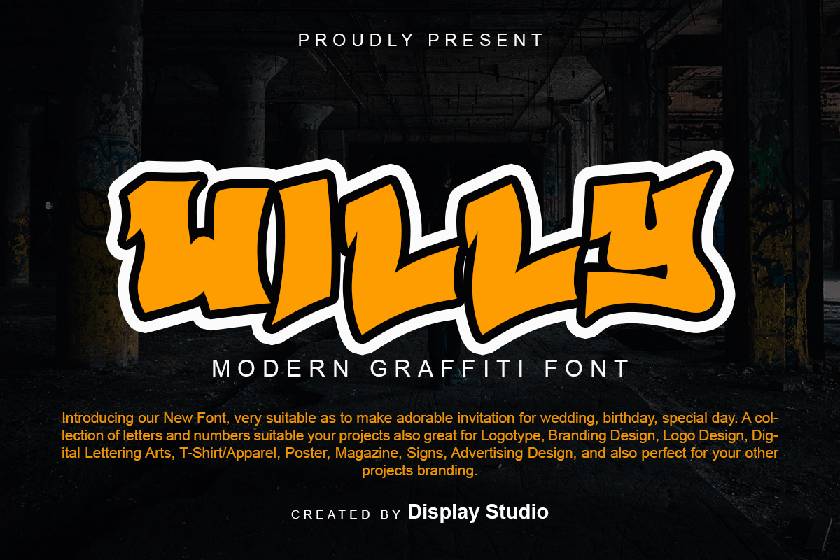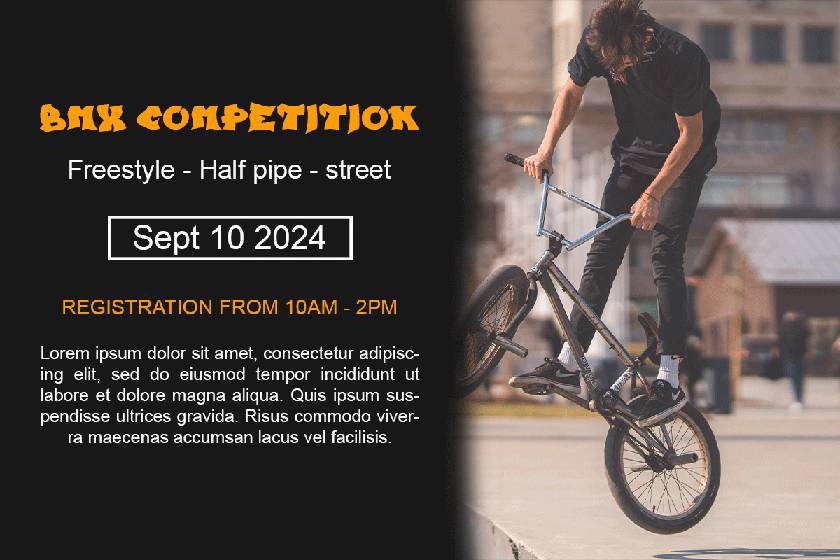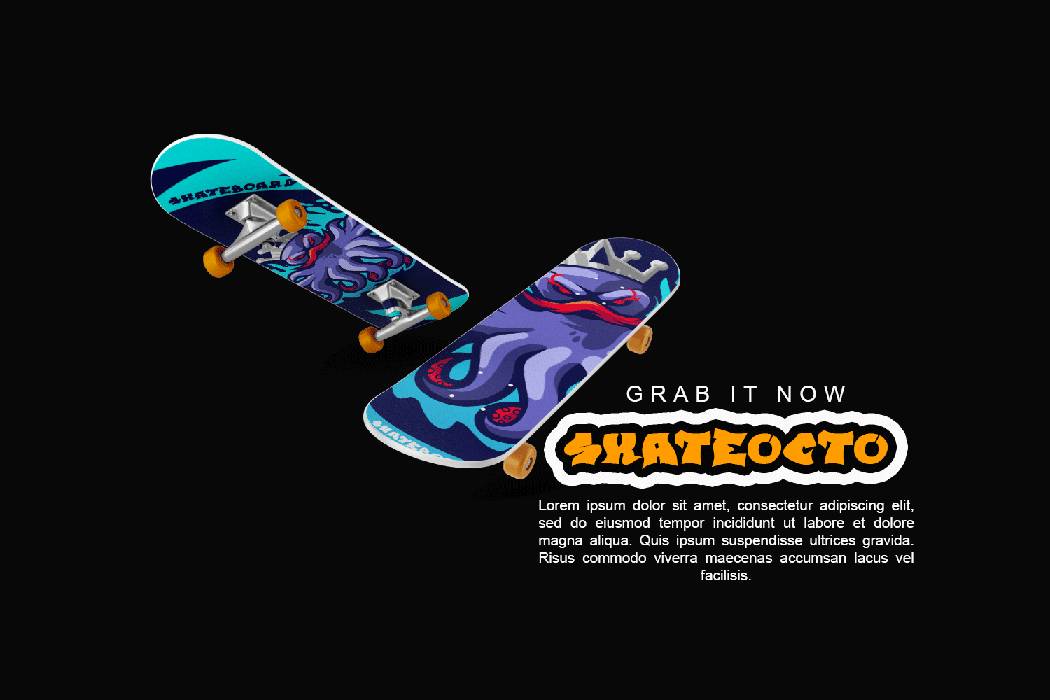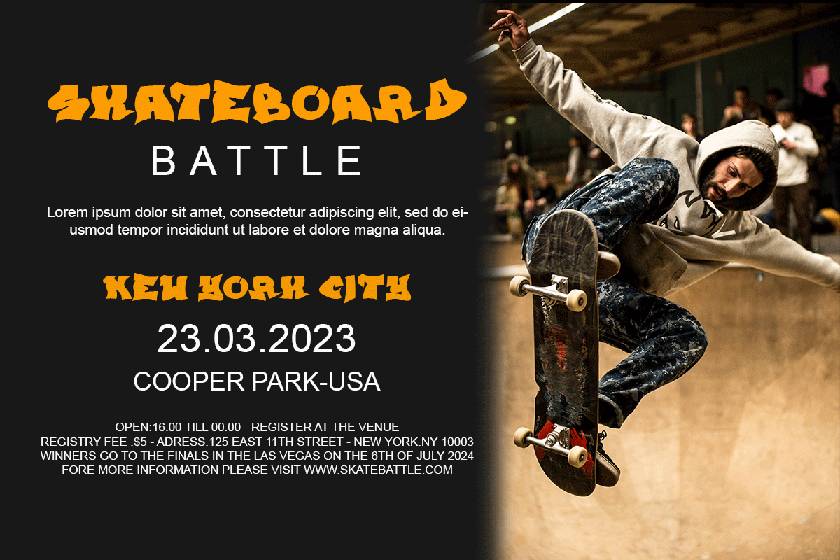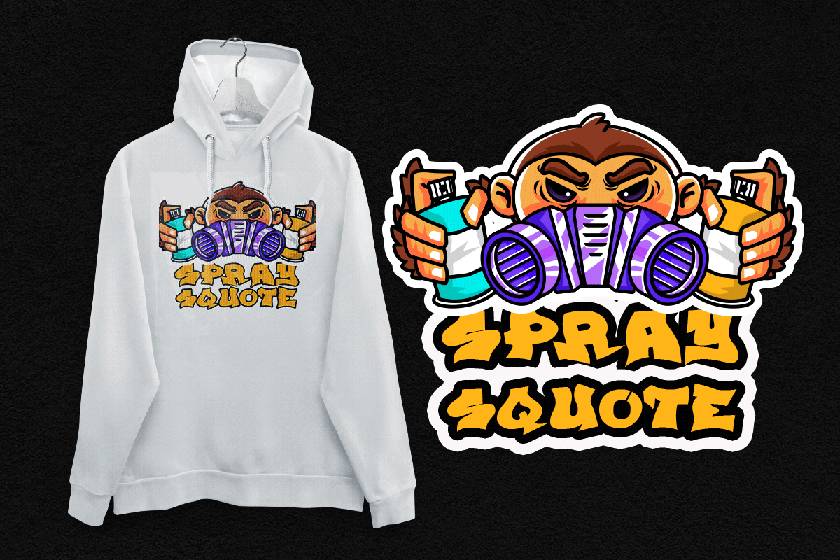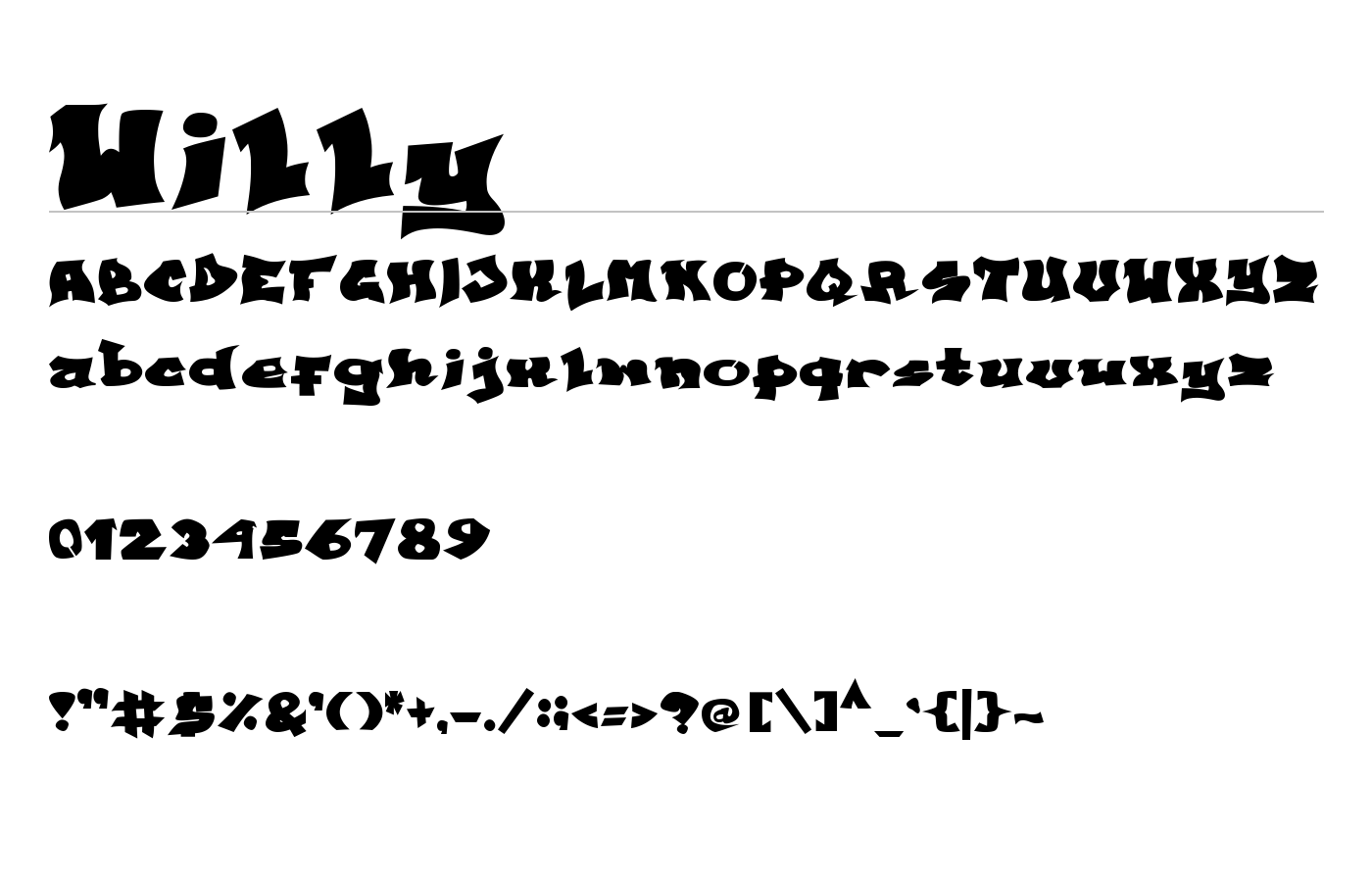
Willy Font is a bold, playful display typeface with chunky, irregular letterforms that evoke a fun and quirky vibe. Its heavy weight and wide, uneven strokes create a strong presence perfect for eye-catching headlines or creative branding, especially where a lively, informal tone is desired. This font works well in posters, logos, and designs that want to communicate energy and uniqueness with a slightly whimsical flair.
Willy Font
About Willy Font
| Font family | Willy Font |